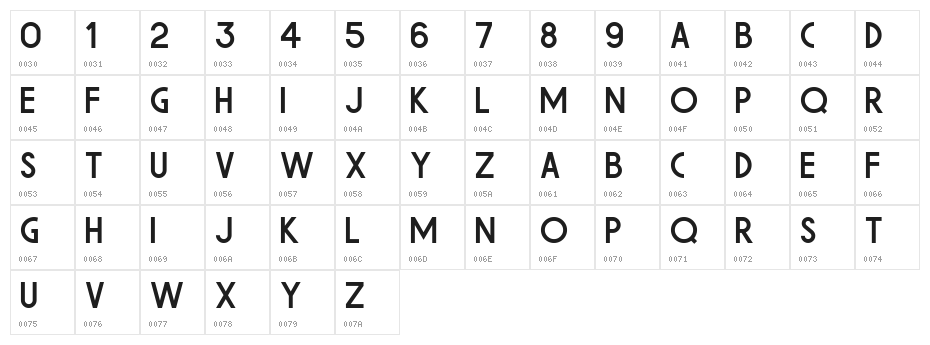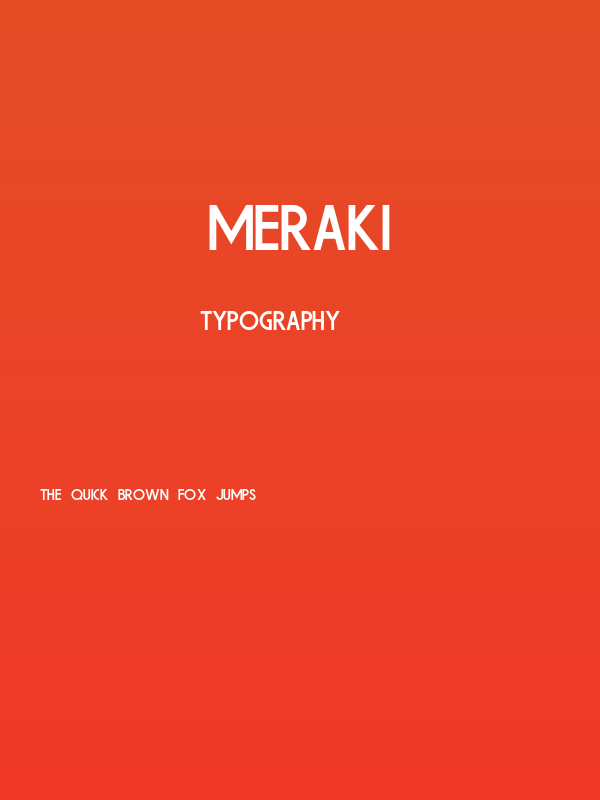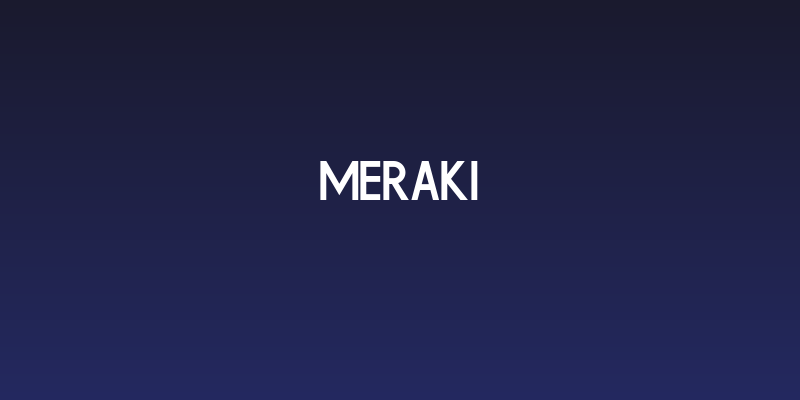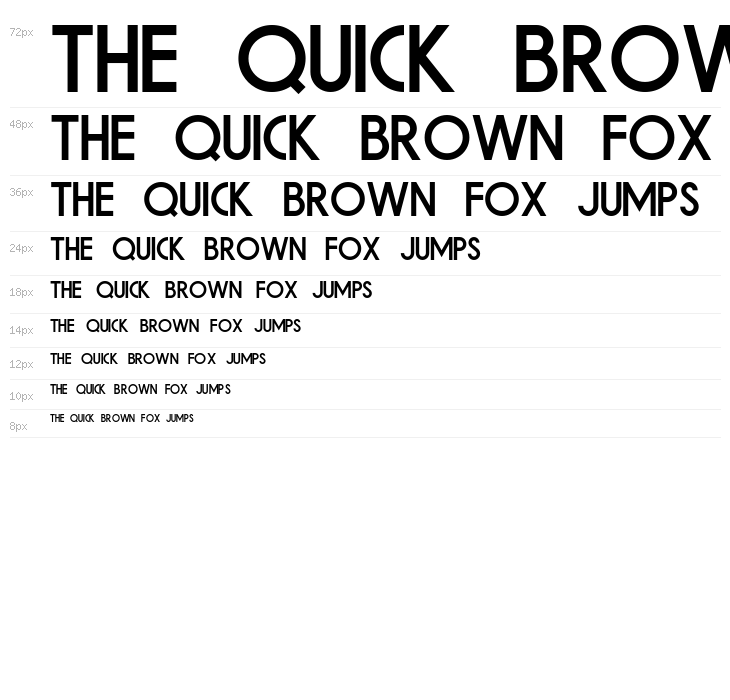
Meraki Font
Meraki Description
This font features a clean and modern sans-serif style with bold, geometric letterforms. The characters are evenly spaced, providing a balanced and harmonious appearance. The uppercase letters are uniform in height, while the lowercase letters maintain a consistent baseline, enhancing readability. The numerals are distinct and align well with the overall design, making them suitable for various applications. The absence of serifs gives it a contemporary feel, while the bold weight adds a sense of strength and clarity. This font is versatile, suitable for both digital and print media, and can be used effectively in branding, advertising, and editorial design.
Use CaseHeadlines, Logos, Branding
Proposed ProjectsIdeal for branding, advertising, editorial design, and digital media.